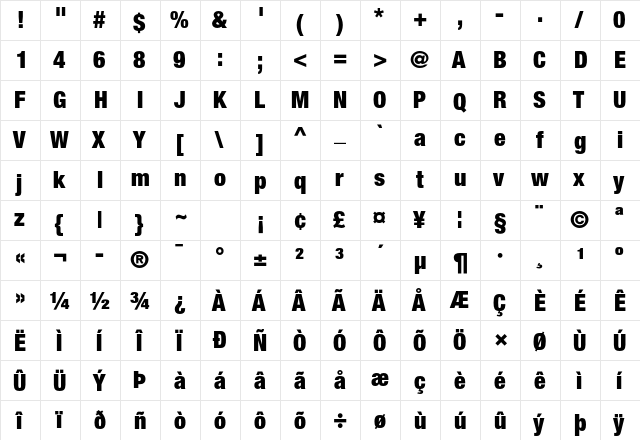
Helvetica Neue LT Std 97 Black Condensed Font Preview
| Style | 97 Black Condensed |
| Designer | Linotype Staff |
Design Context for Helvetica Neue LT Std Typeface
Helvetica Neue LT Std offers clean, dependable letterforms without strong stylistic allegiance, making it a practical choice for designers who need flexibility. Its slender proportions lend an understated elegance to any composition. The condensed width makes it efficient for tight spaces without sacrificing legibility.